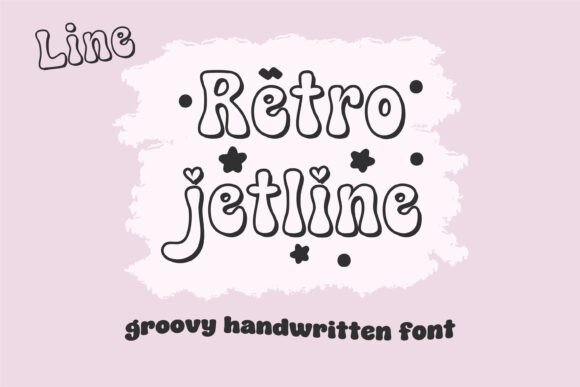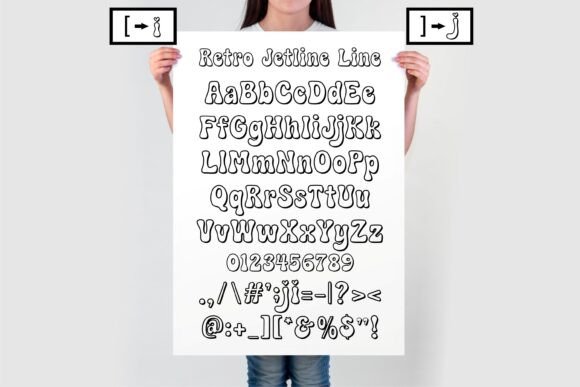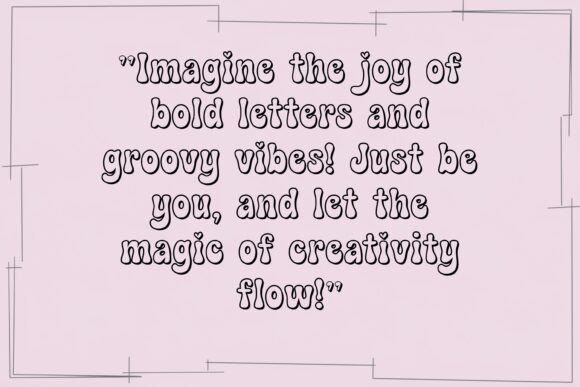
Retro Jetline Line Font
About the Retro Jetline Line Font
From logos to headlines, the Retro Jetline Line Font is the perfect choice for making a lasting impression. Retro Jetline Line is a whimsical, handwritten outline font with groovy, retro vibes. Its playful style, featuring heart and star accents, makes it perfect for eye-catching designs like posters, quotes, invitations, logos, and crafts. This light, line-based font adds a fun, nostalgic aesthetic to projects while remaining versatile and easy to read. Great for Cricut, Silhouette, and digital platforms. The font comes in OTF and TTF formats for quick and easy installation. Add a retro touch of creativity with Retro Jetline Line!
Retro Jetline Line Font Usage Examples
Retro Jetline Line Font Example